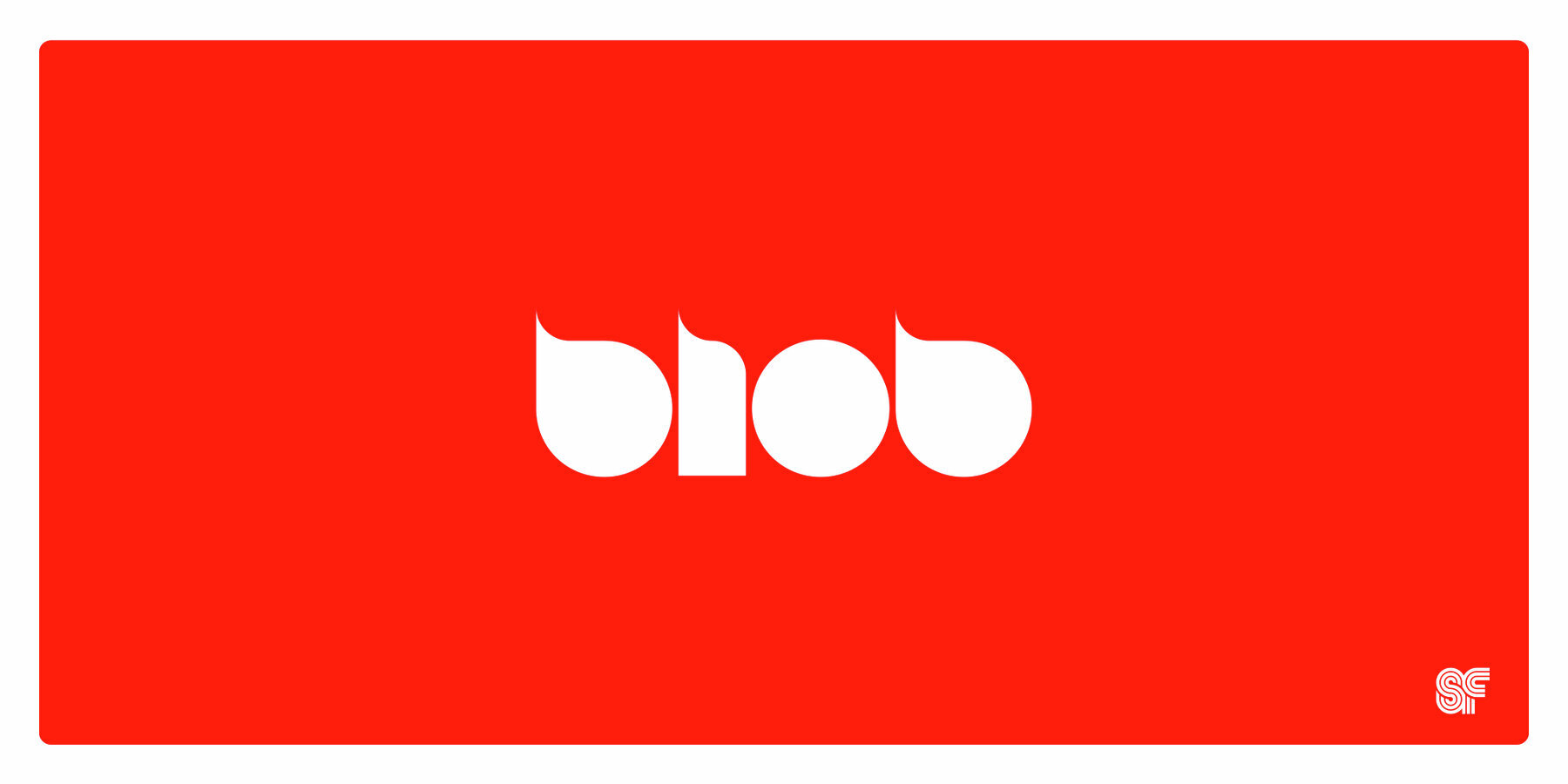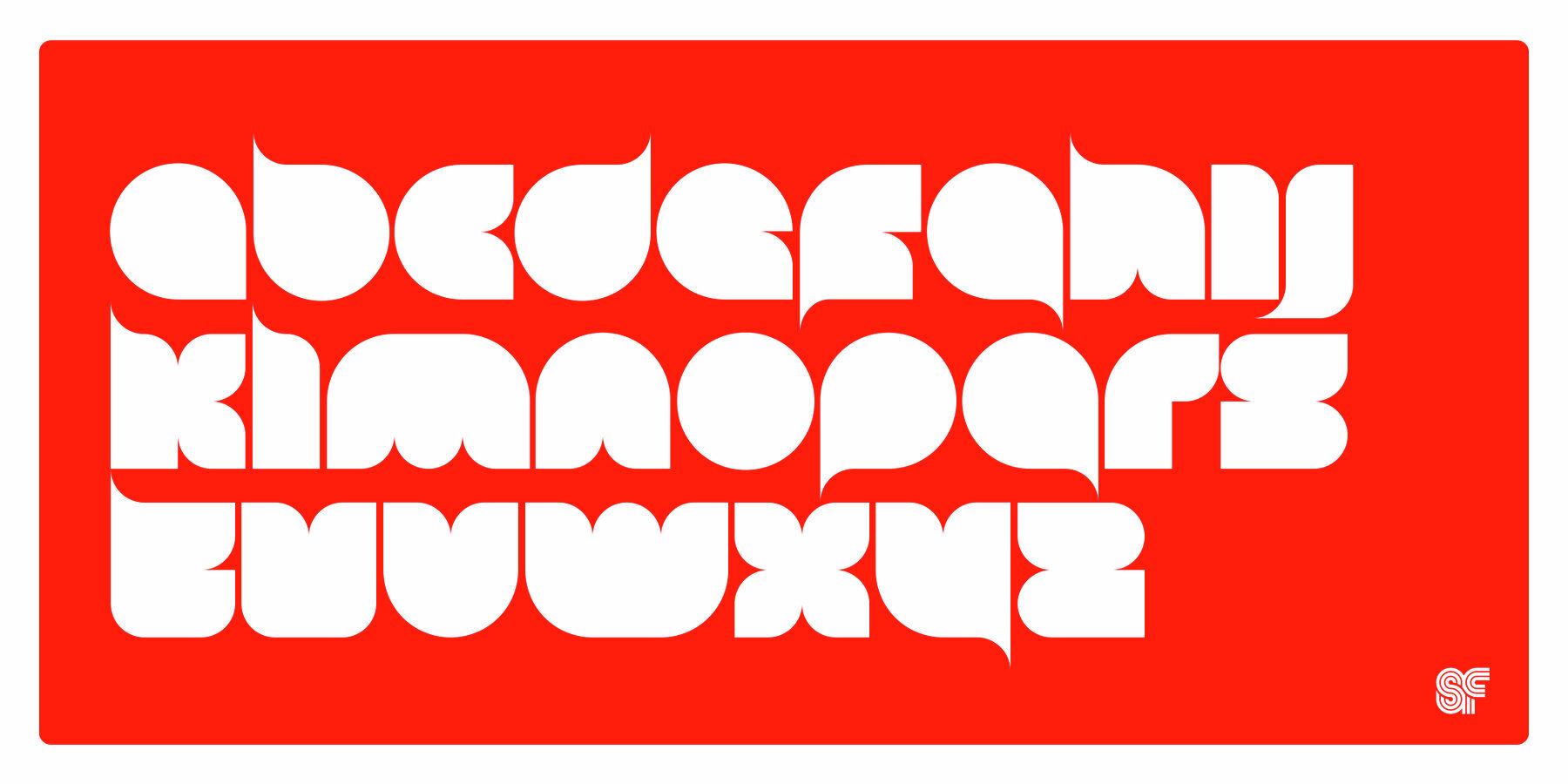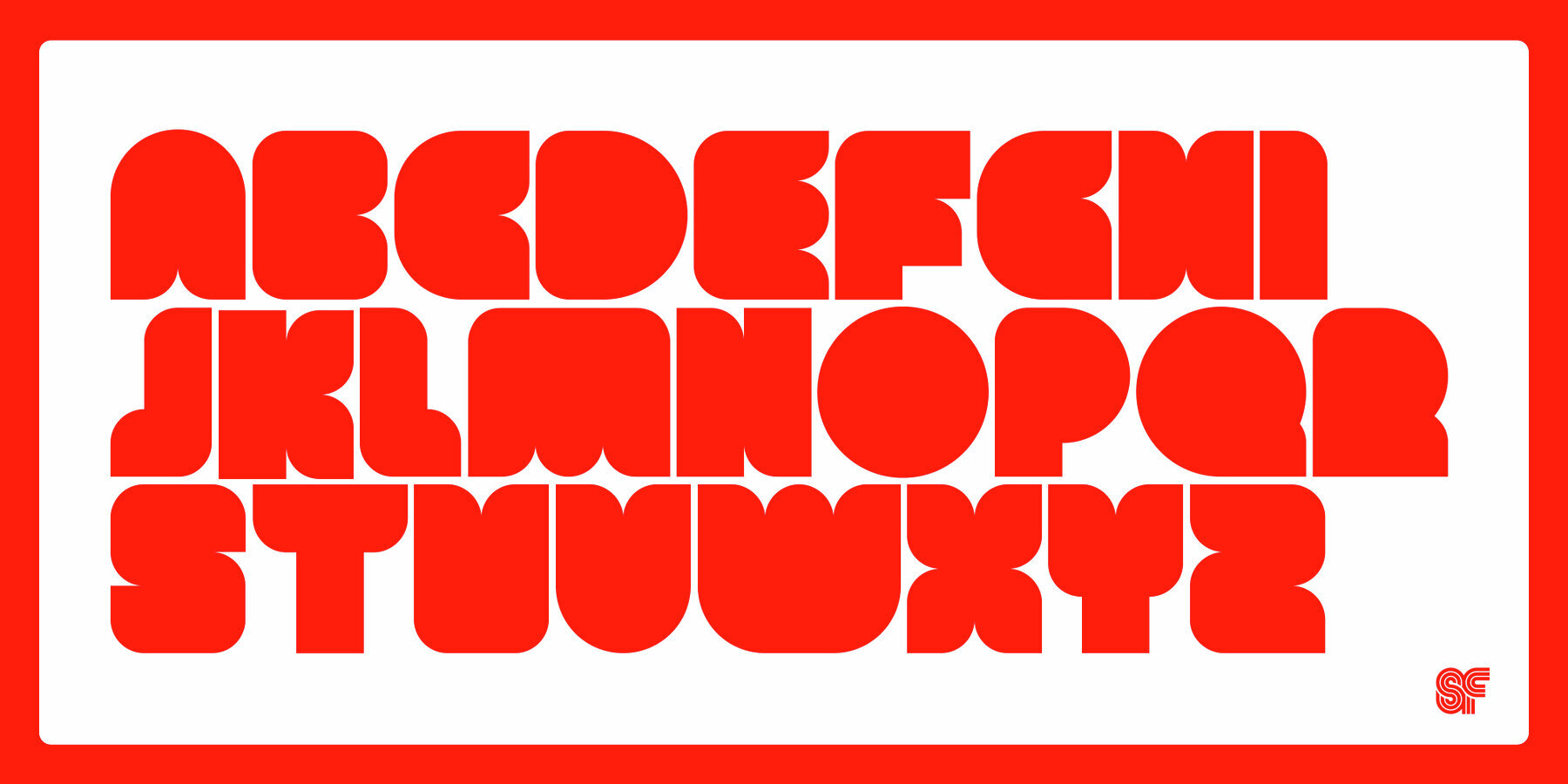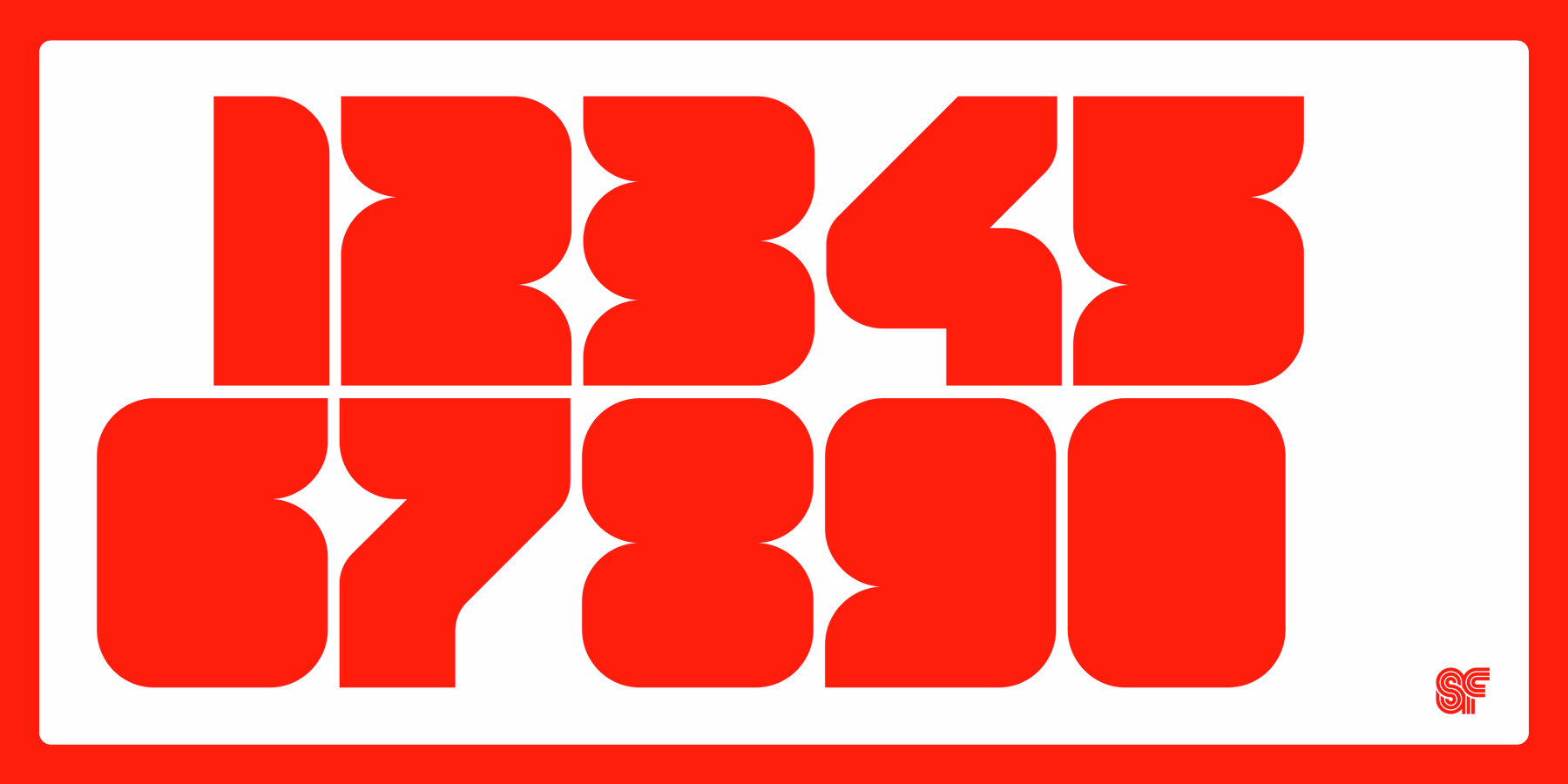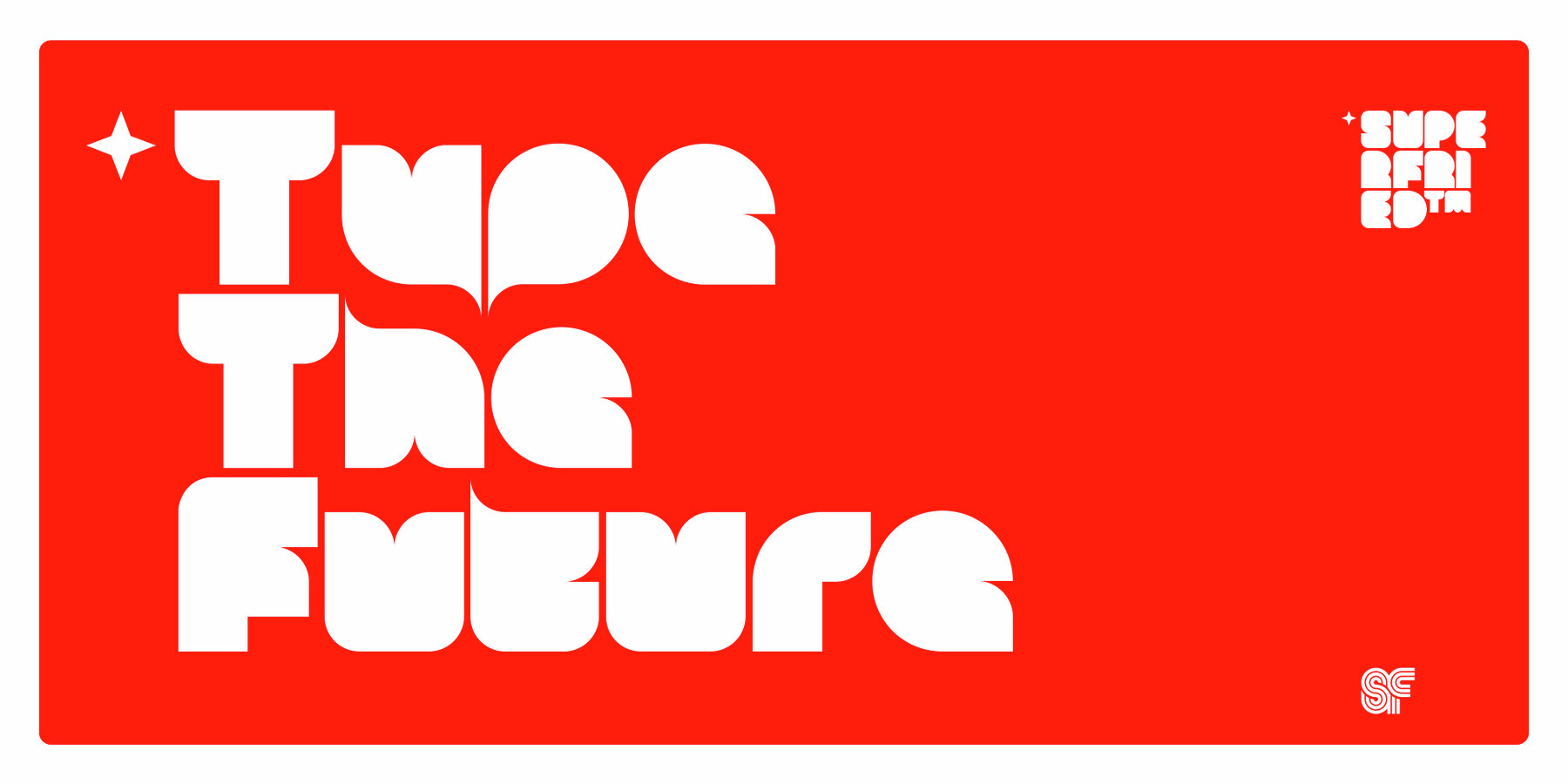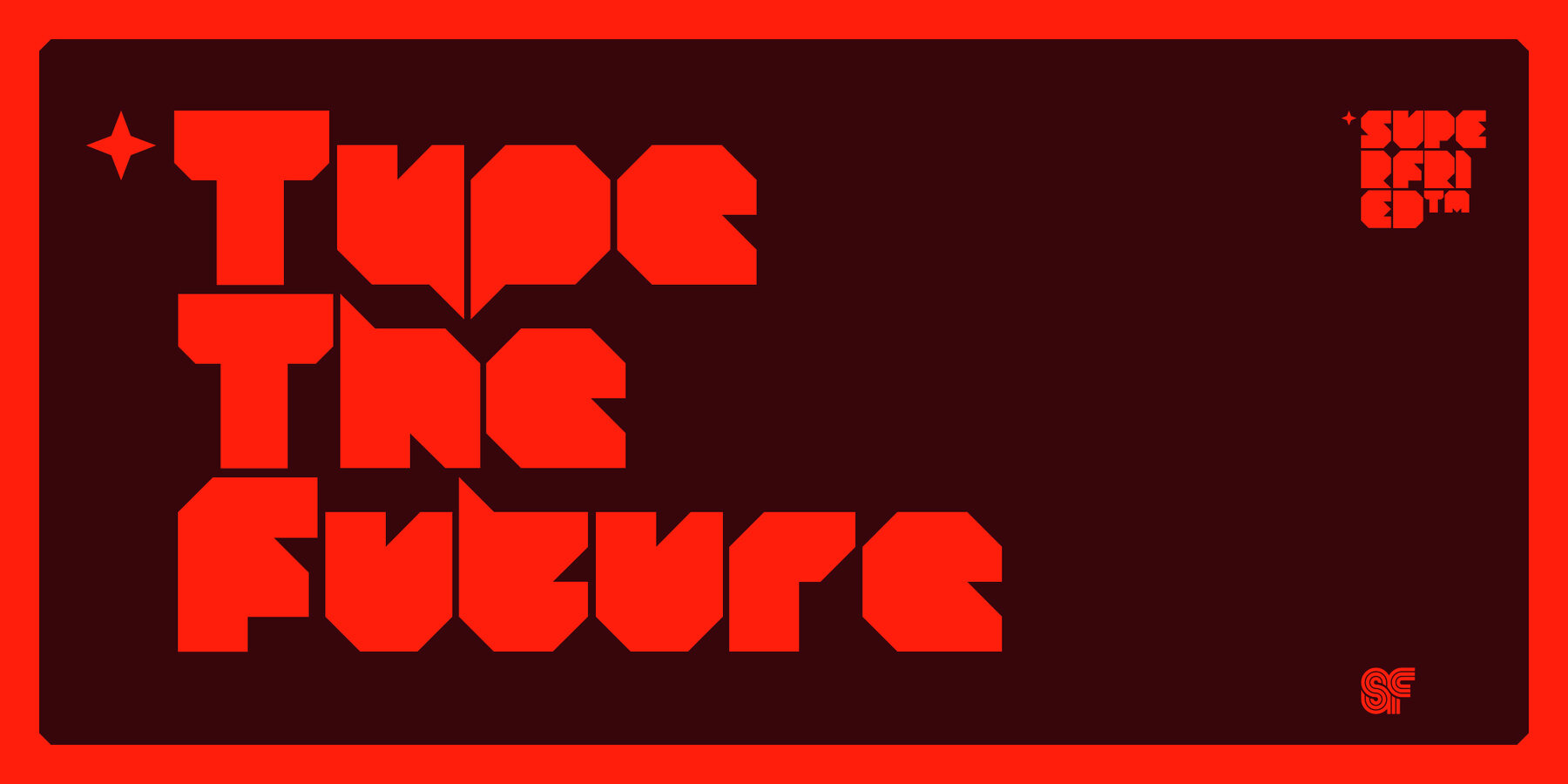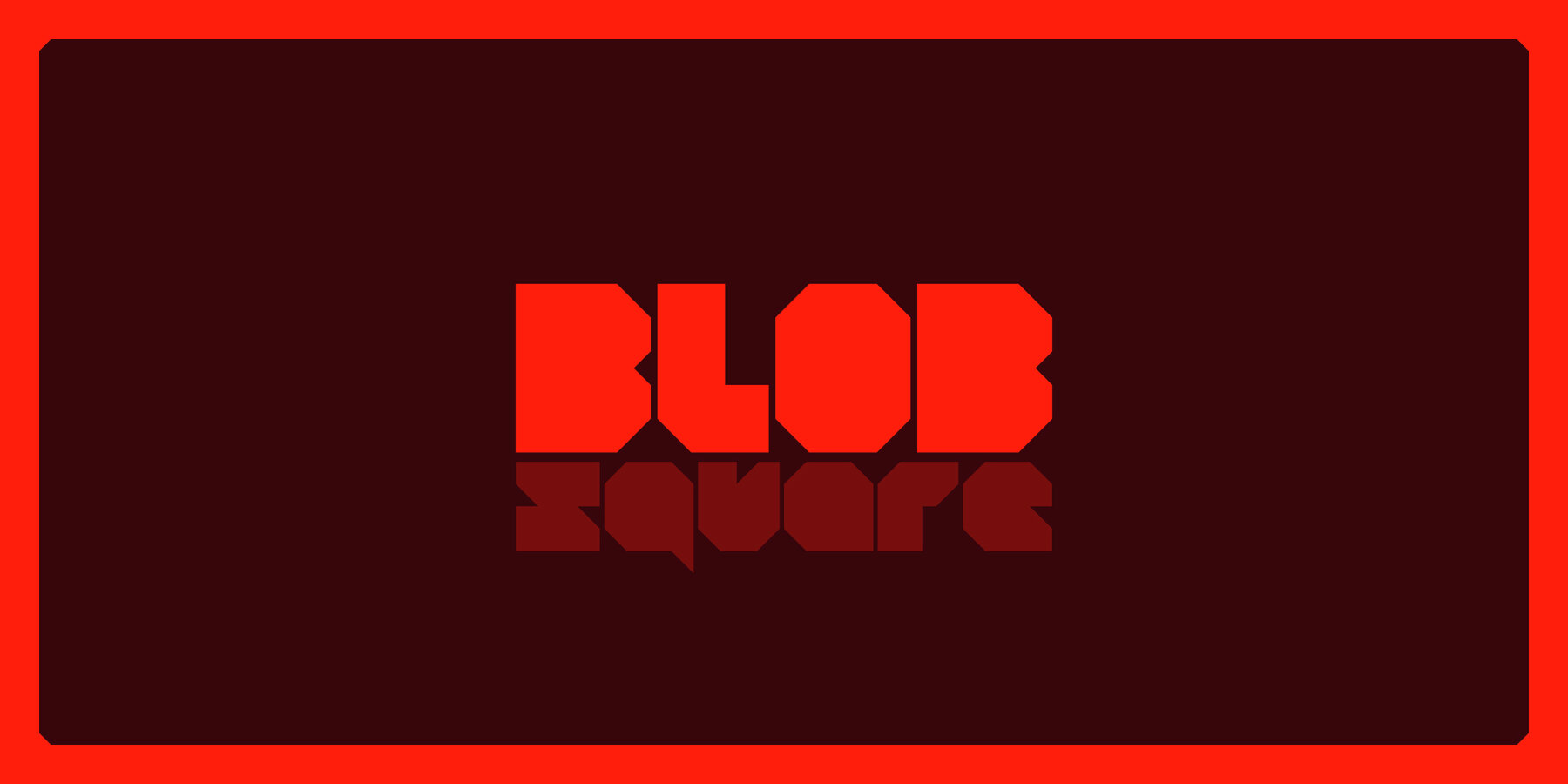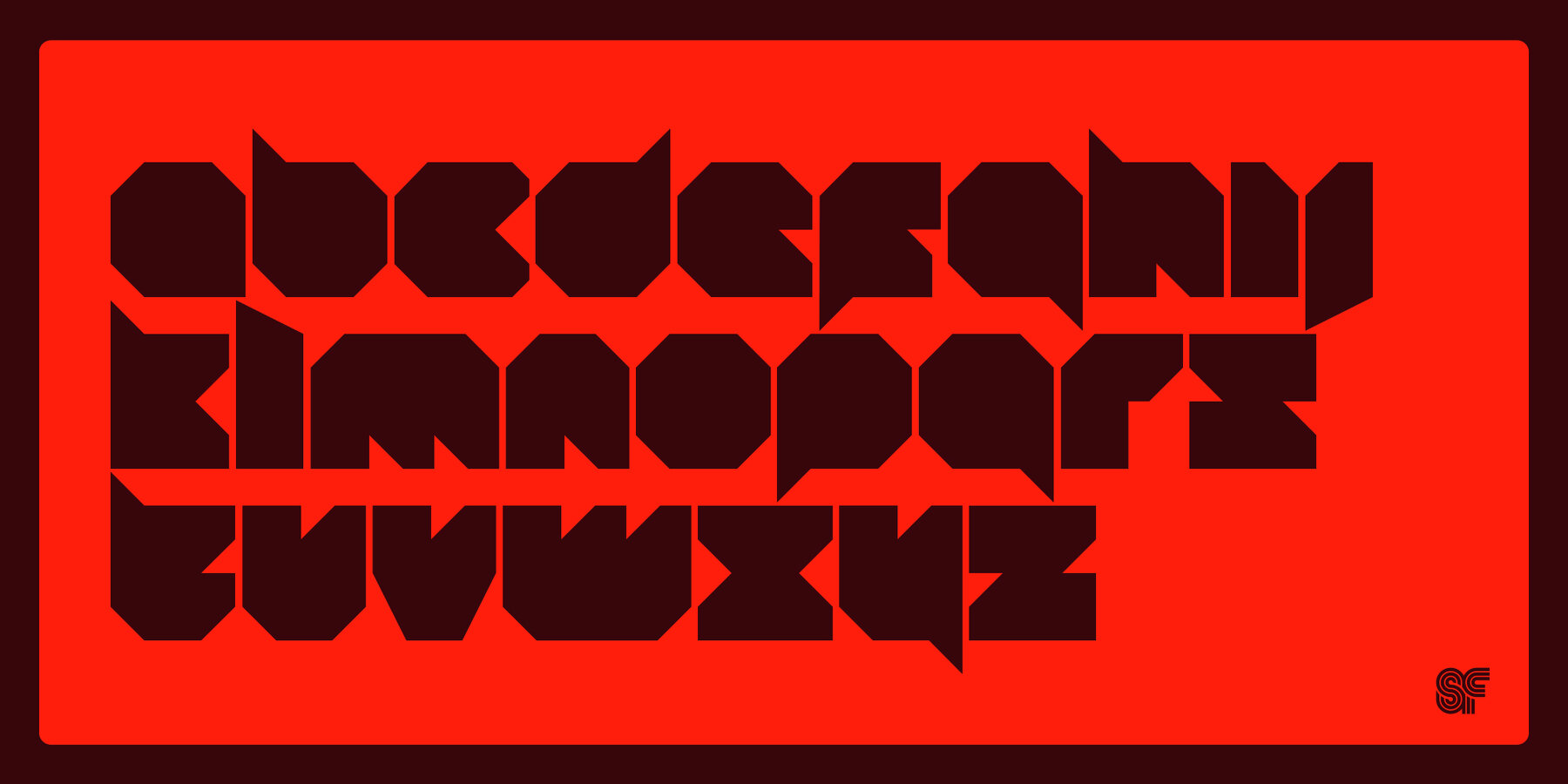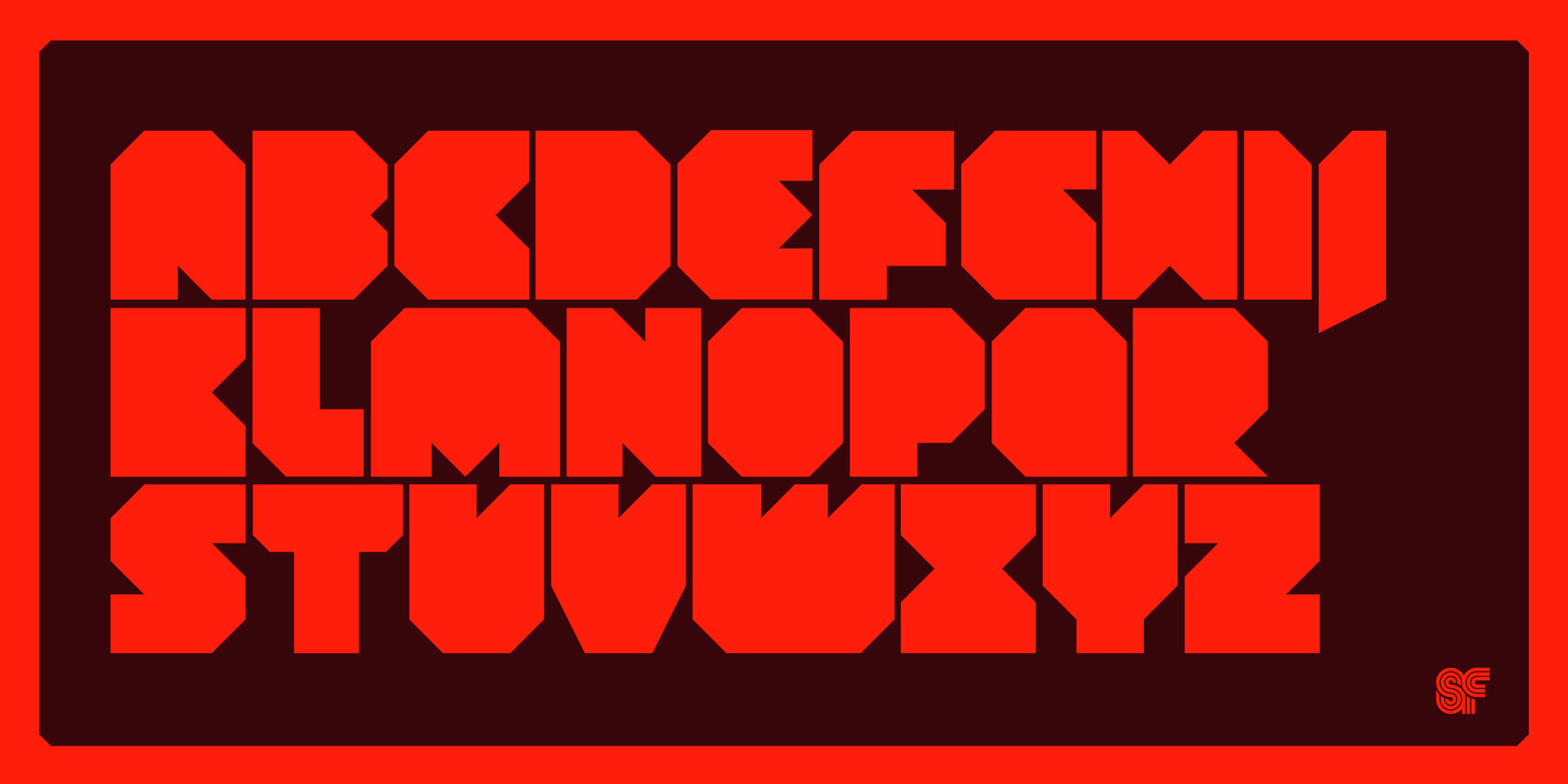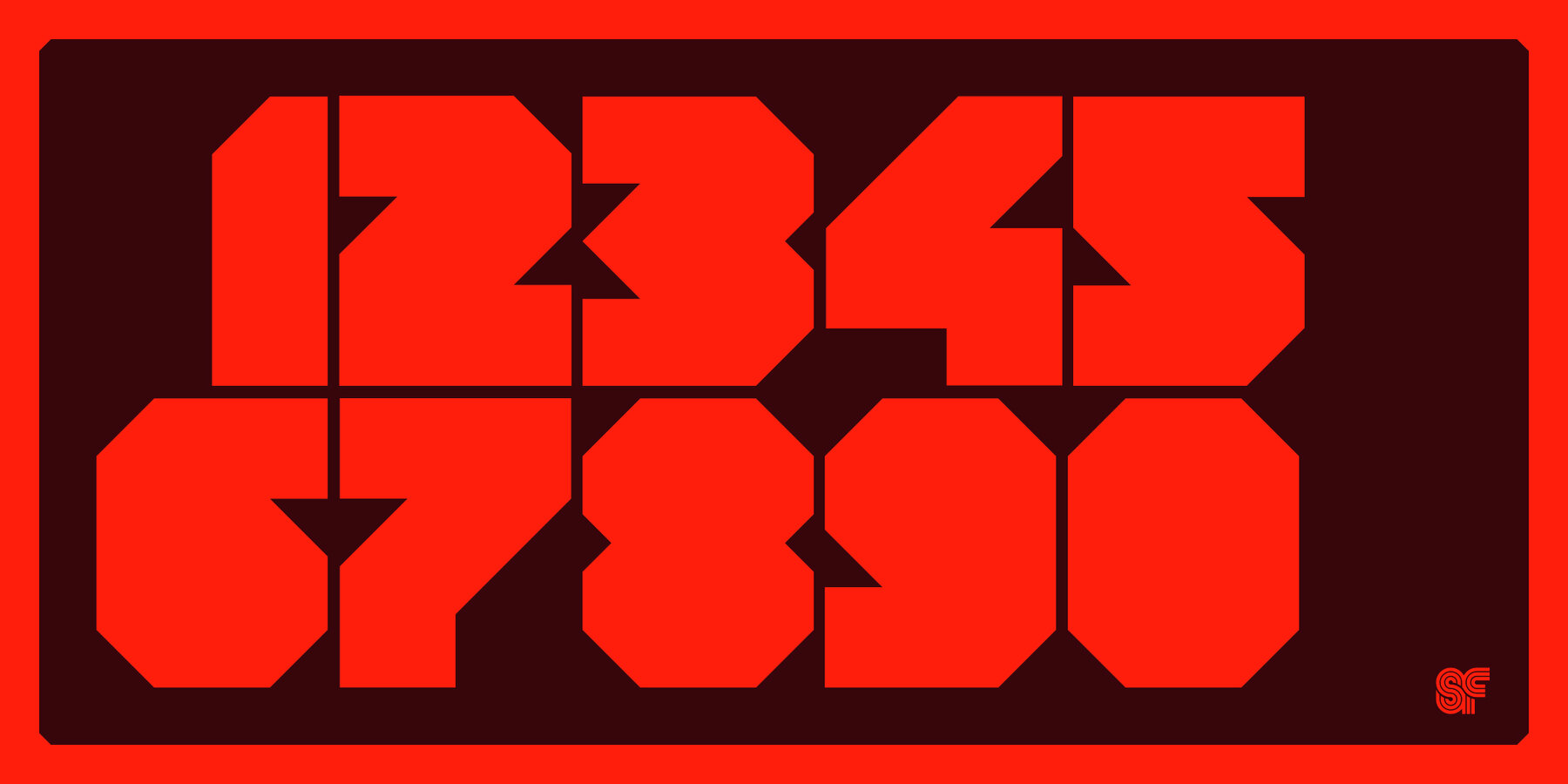
Blob Font
Blob Round
Blob Square
Blob, designed by Superfried, is available in two formats Round & Square. It is an experimental, sans-serif display typeface based on simple geometric shapes. Although unorthodox, care has been taken to ensure that it is completely legible. Blob has been featured on the Behance curated typography gallery TypographyServed.com.